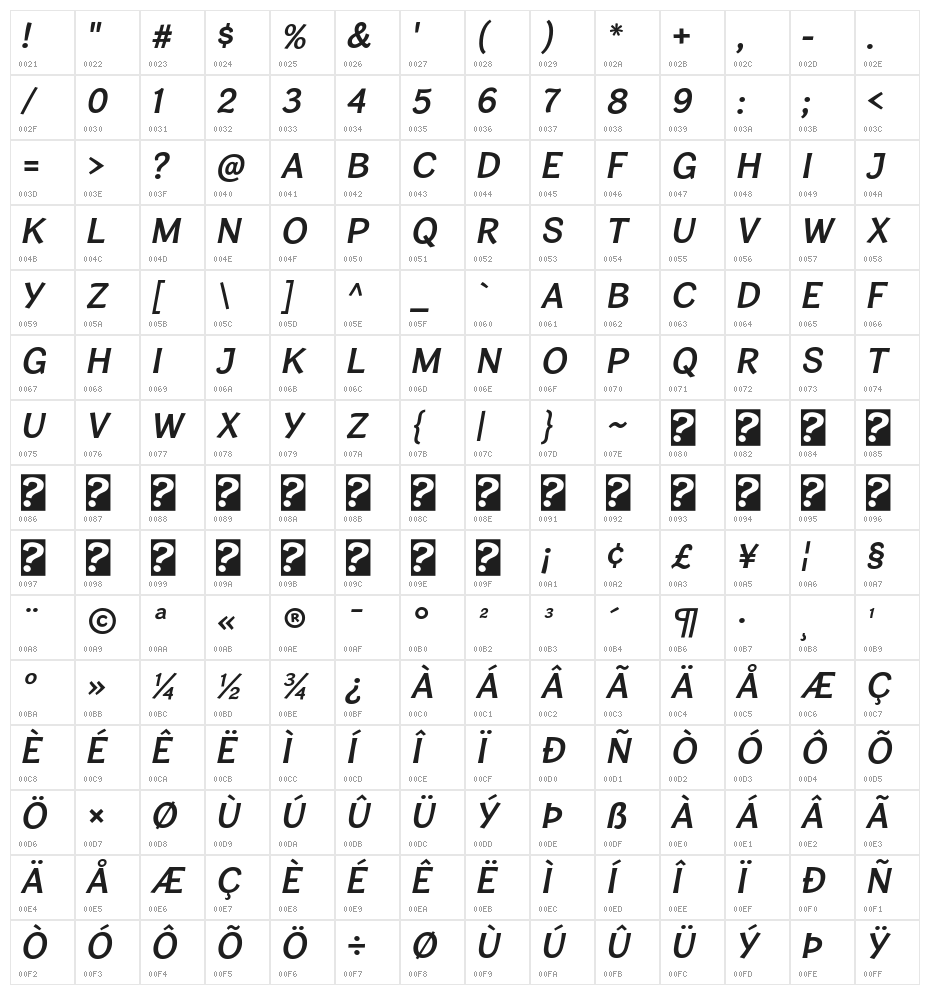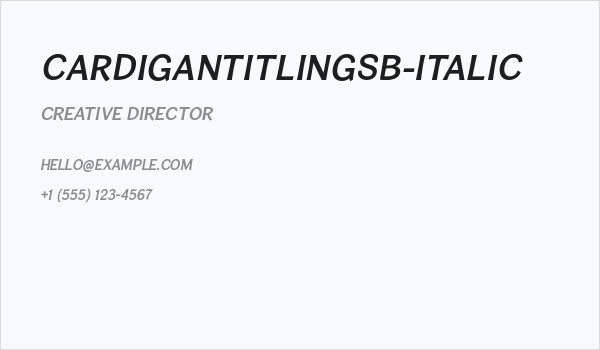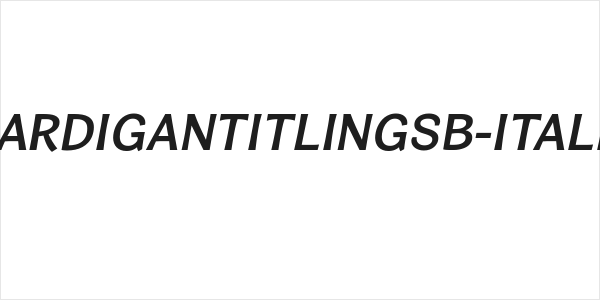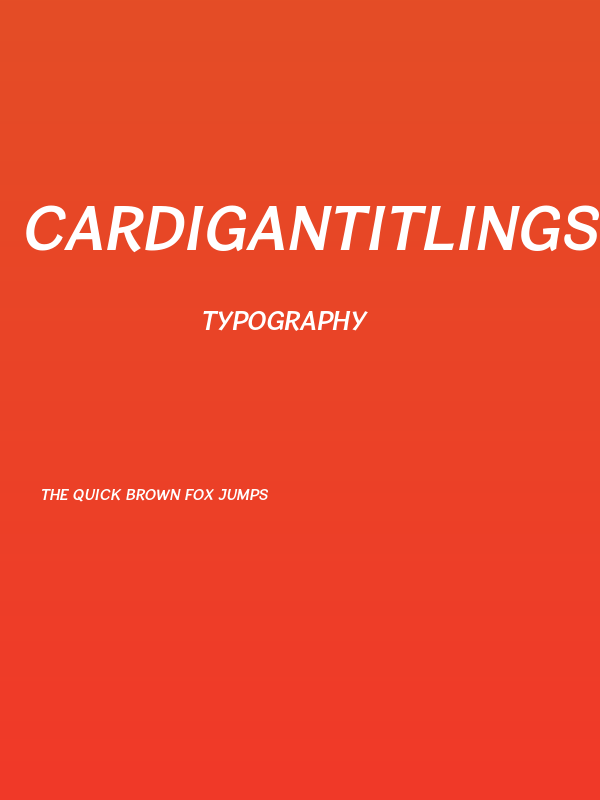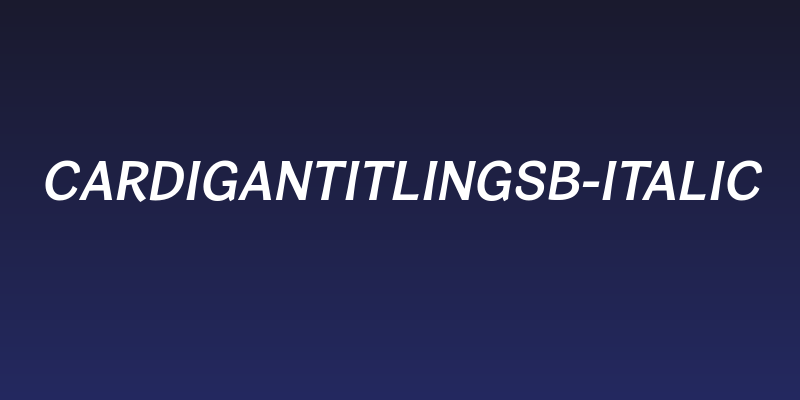
CardiganTitlingSb-Italic Font
CardiganTitlingSb-Italic Description
This font presents a sleek and modern italic style, characterized by its smooth curves and dynamic slant. The uppercase and lowercase letters maintain a consistent flow, enhancing readability while adding a touch of elegance. The numerals are clear and well-defined, making them suitable for various applications. Special characters are thoughtfully designed, ensuring they complement the overall aesthetic. The font's italic nature gives it a sense of motion and sophistication, making it ideal for projects that require a contemporary and stylish appearance.
| Use Case | Headlines, Logos, Editorial Design |
| Proposed Projects | Ideal for branding, advertising, and editorial design where a modern and stylish look is desired. |